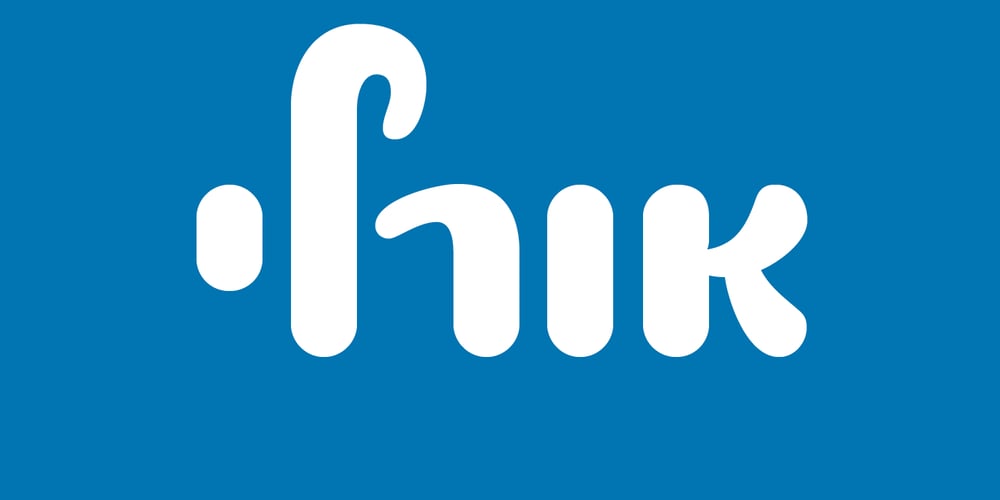
Agamim MF Font Family was designed by Daniel Levy and published by Masterfont. Agamim MF contains 1 styles and family package options. The classic foamy look of a birthday cake – yes indeed. Grace and sweet in once font!